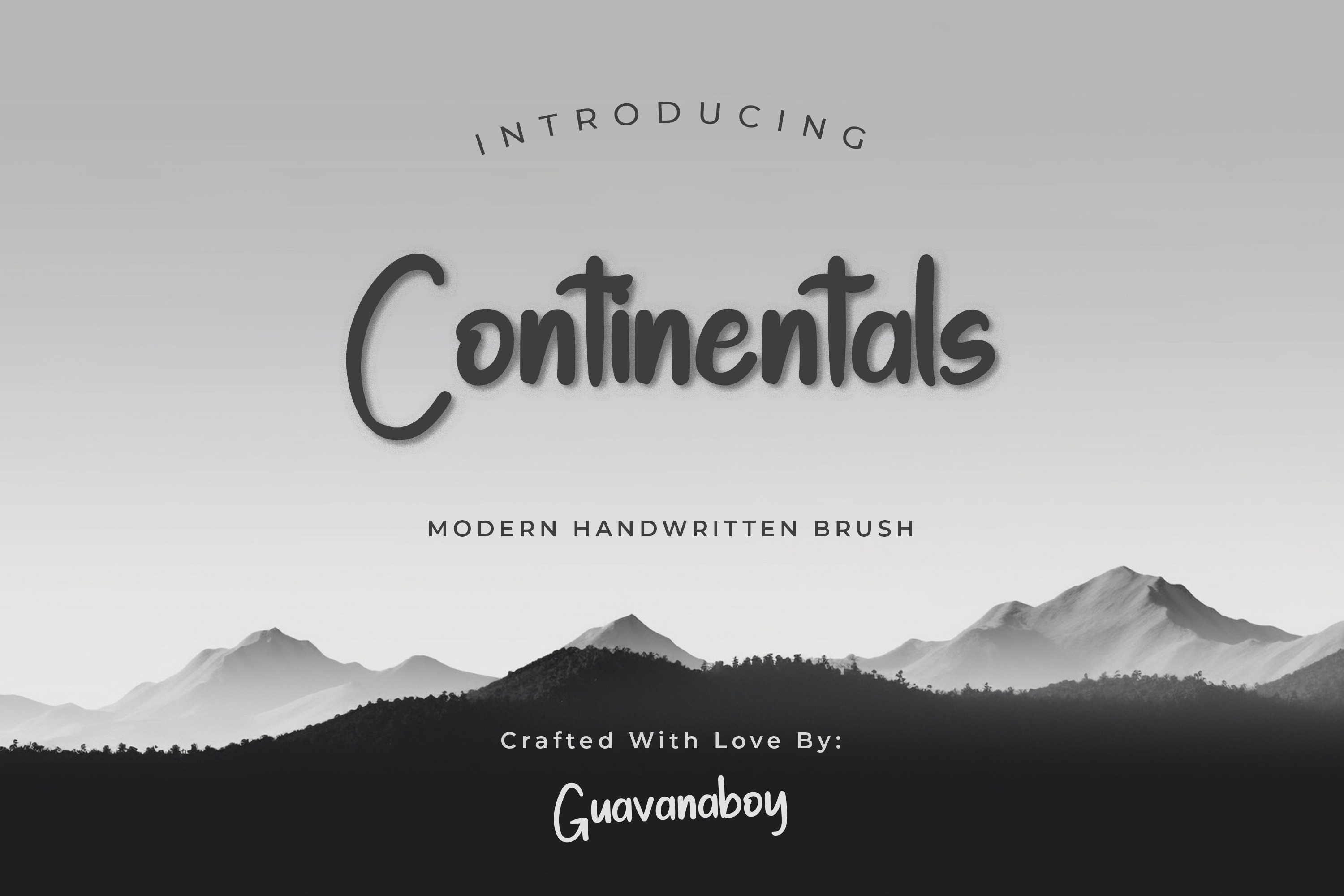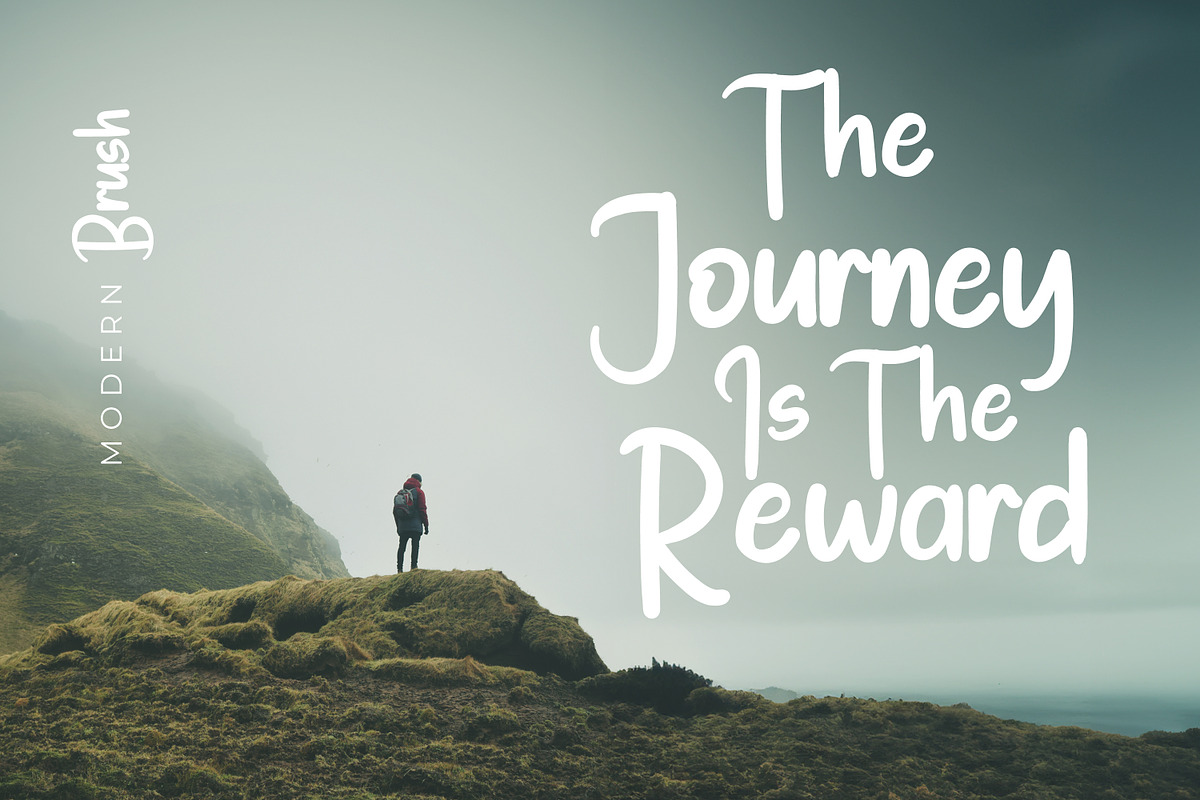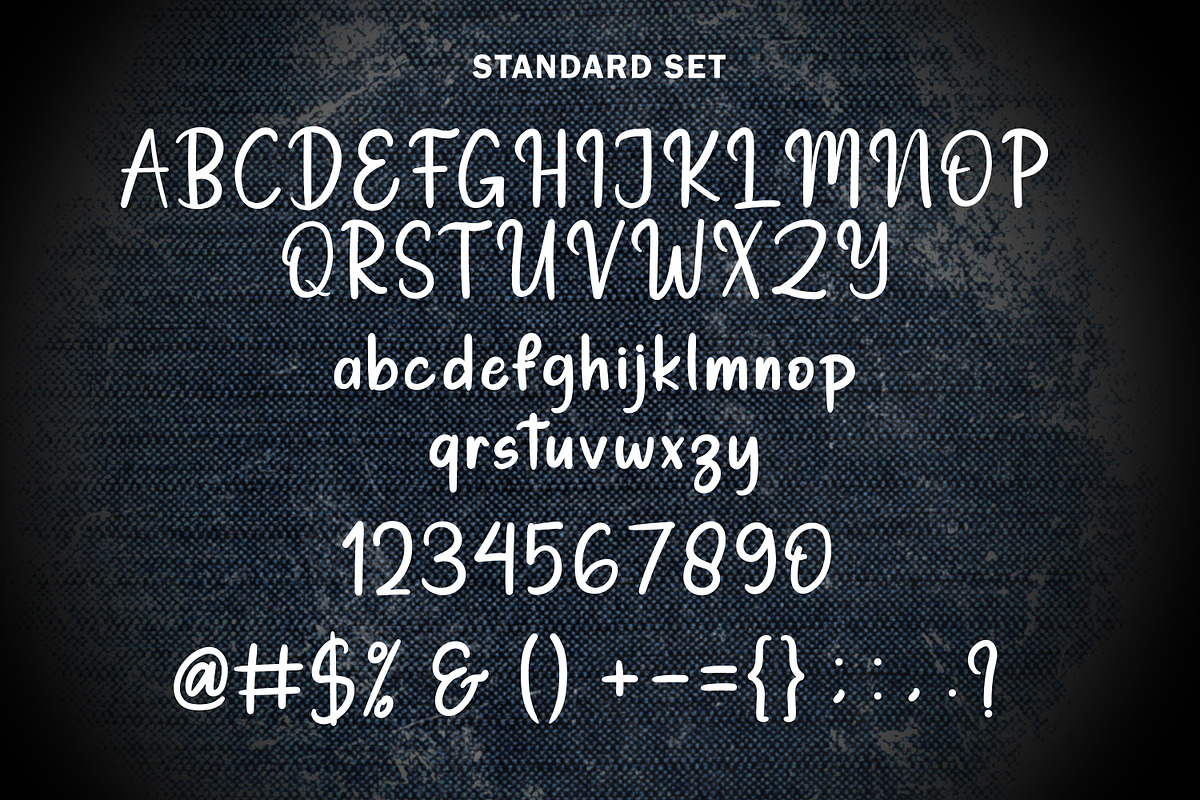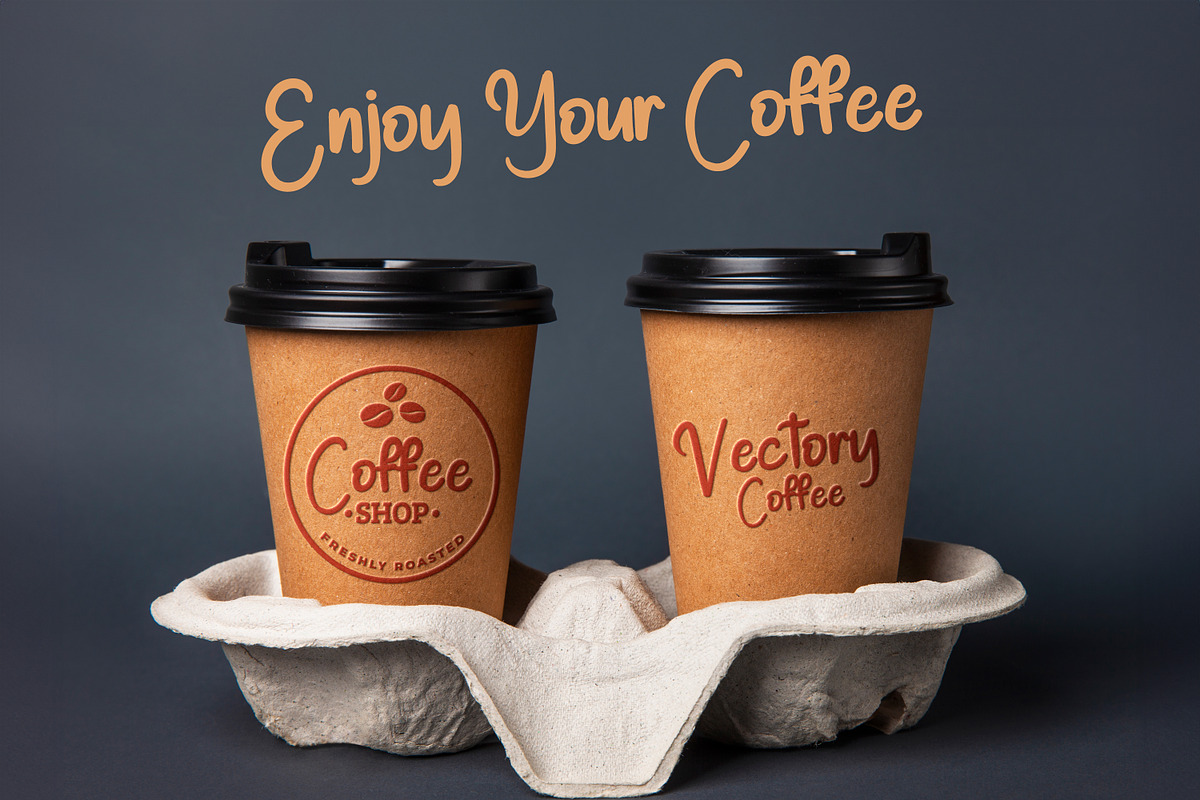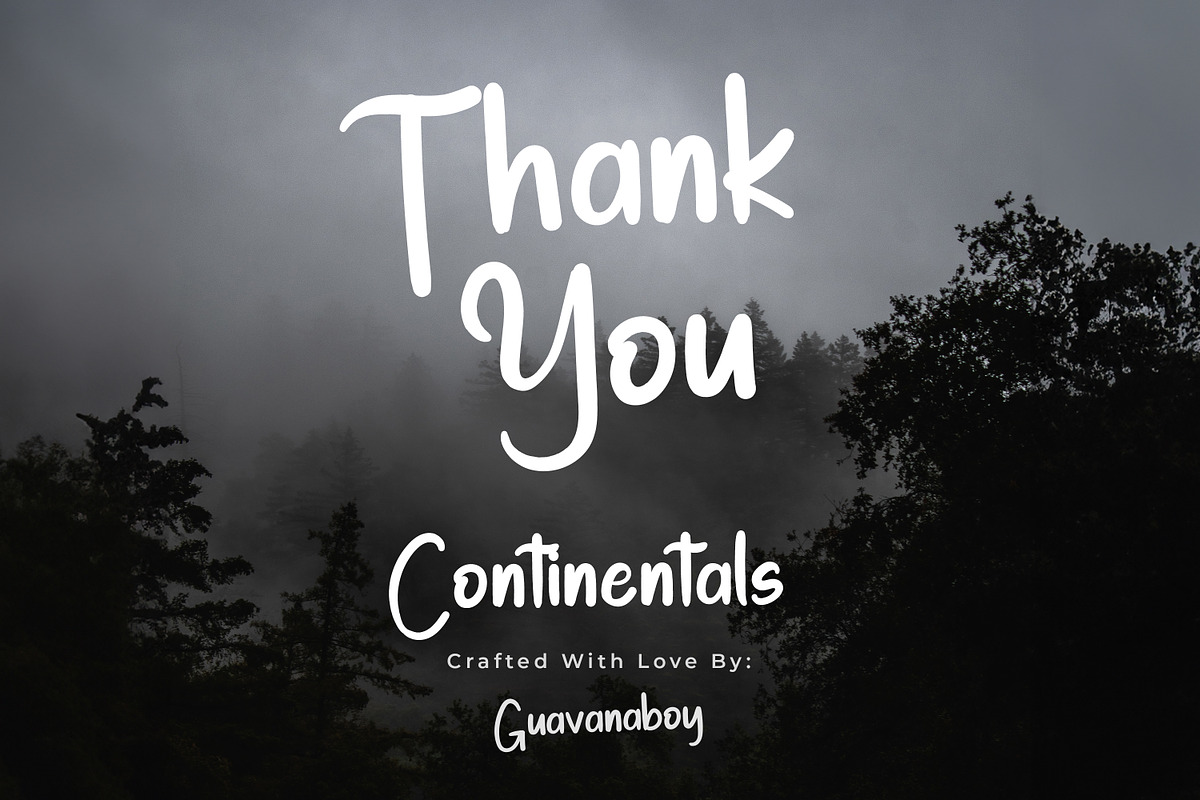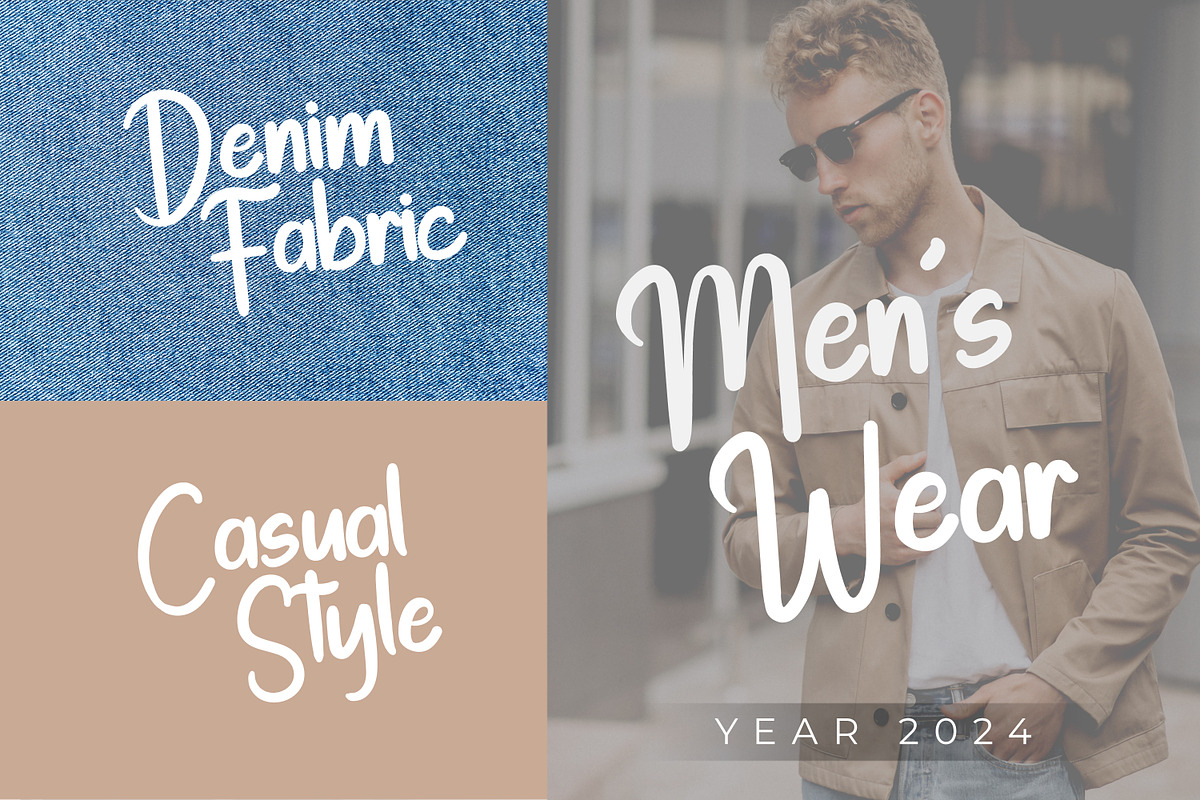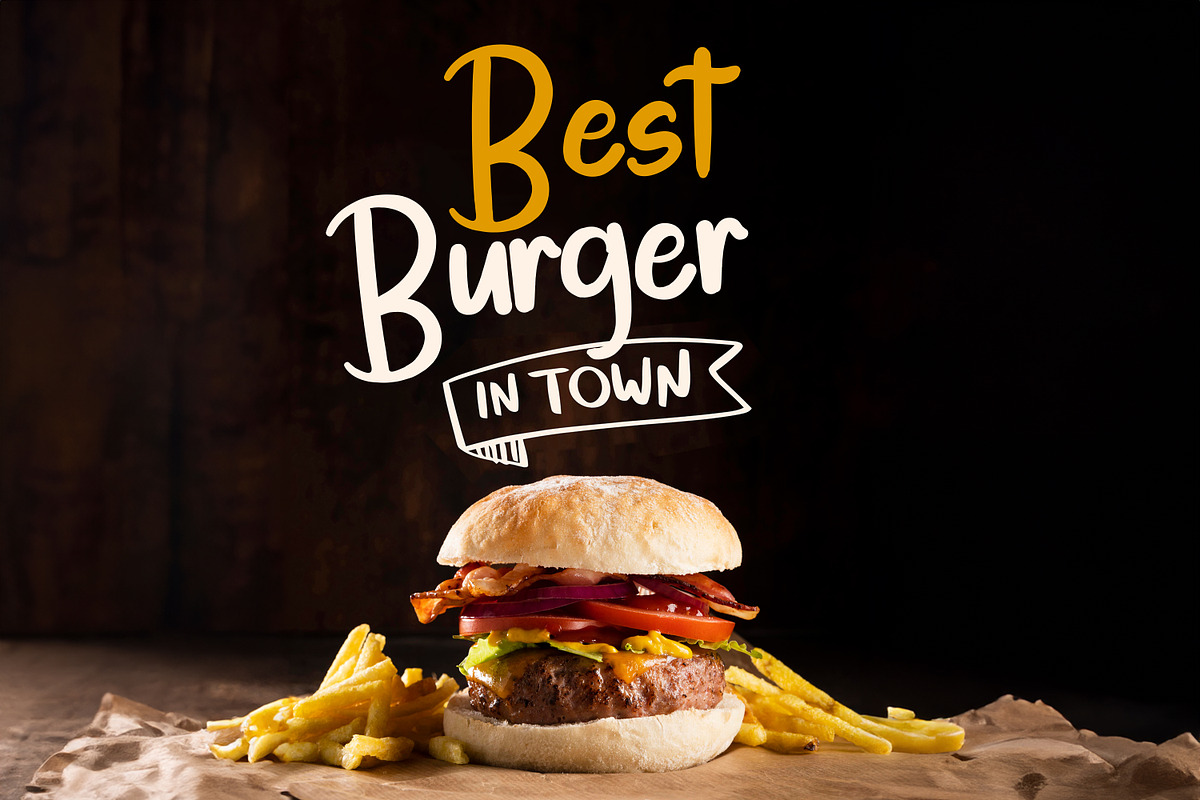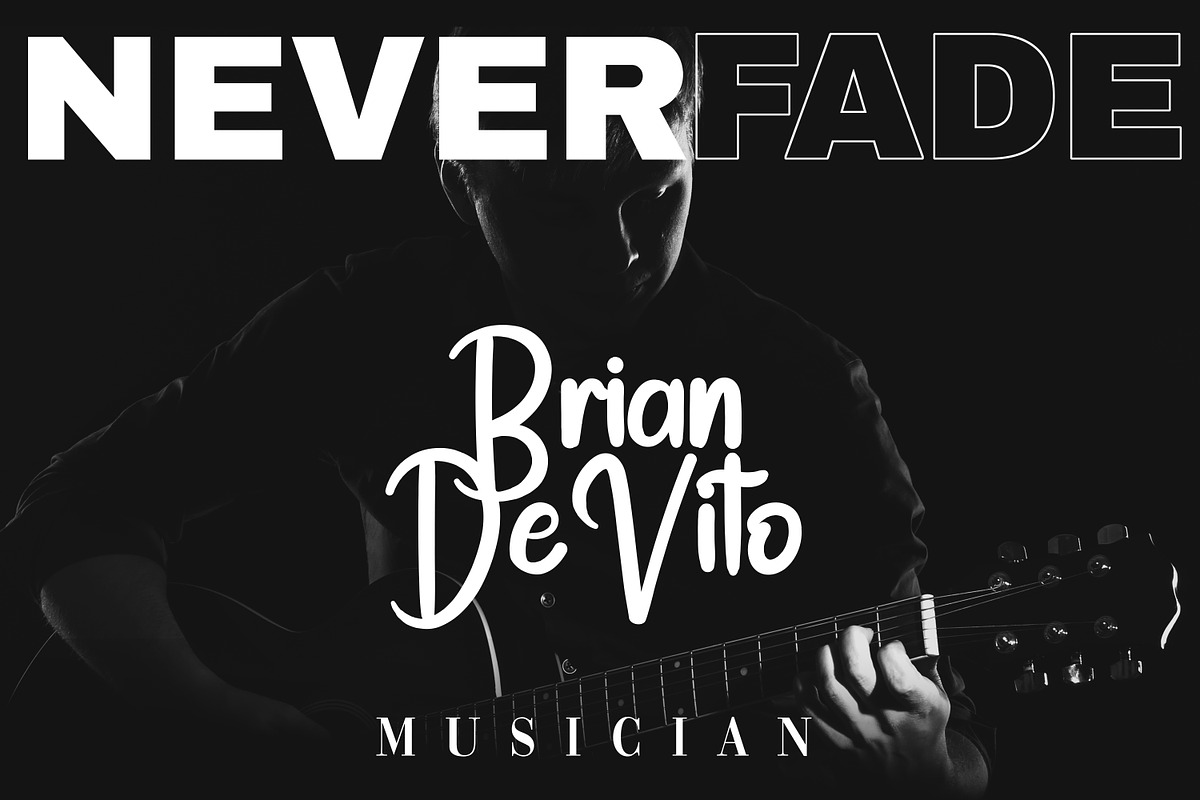
Continentals Modern San Serif Font
Introducing our “Continentals” Modern and stylish handwritten Font with elegant stroke and casual tone.
Perfect for apparel design, cricut project, t-shirt, logos, branding, invitation, wedding, photography, social media posts, and more.